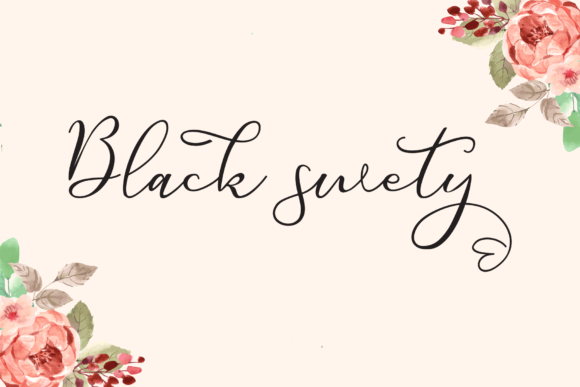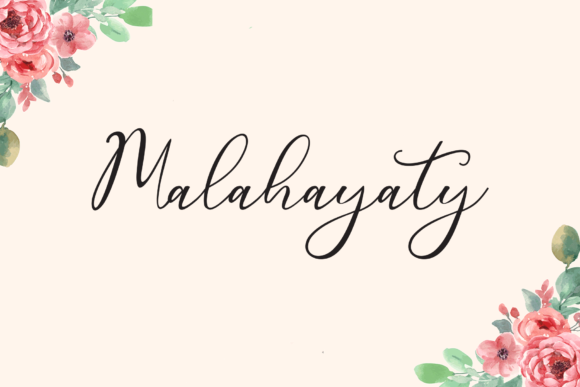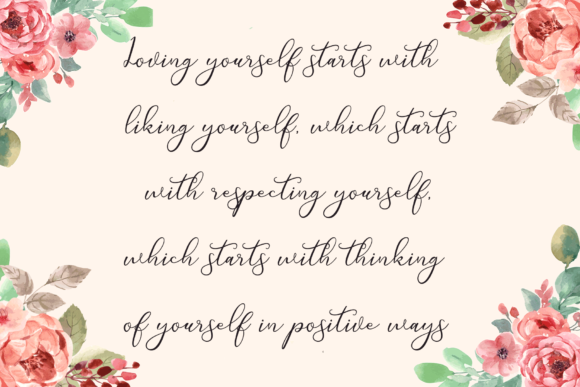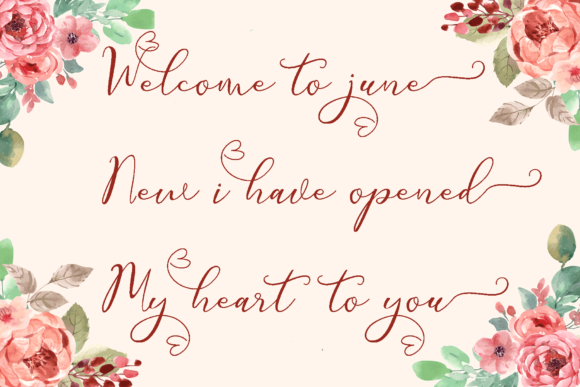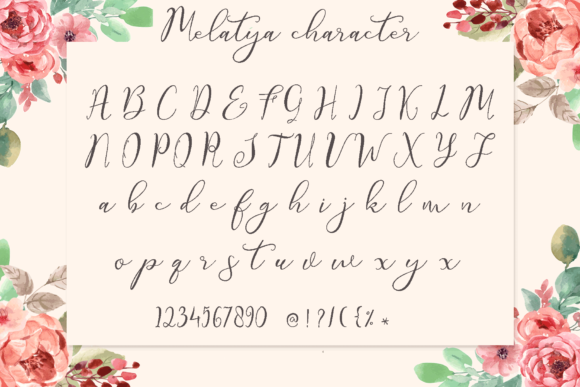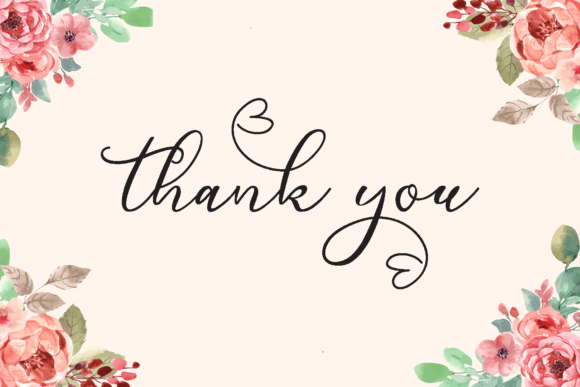
Introduction to Melatya Font
Have you ever been working on a creative project and felt like something was missing, a certain je ne sais quoi that would elevate it from good to great? I’ve been there, and I’m sure many designers have too. It’s that moment when you’re staring at a blank page, trying to come up with the perfect design element to bring your vision to life.
That’s where the Melatya Font comes in – a beautiful, romantic calligraphy typeface that adds a touch of luxury to any design project. With its elegant characters that dance along the baseline, this font is the perfect addition to any creative endeavor.
As a valuable resource for designers, the Melatya Font is not only high quality but also PUA encoded, making it easy to access all of its amazing glyphs and ligatures. Whether you’re working on a free download or a commercial project, this font is sure to impress with its transparent background and versatility.
Key Features of Melatya Font
- High-quality, professional font suitable for creative projects and design resources.
- Unique, elegant design style that can add a touch of sophistication to any creative project.
Honest Review: Melatya Font
As a designer, I’m always on the lookout for high-quality design resources to elevate my creative projects. Recently, I came across the Melatya Font, and I must say, it’s been a game-changer.
- ✨ Unique Design: The Melatya Font boasts a unique and stylish design that’s perfect for adding a touch of sophistication to your project.
- ✨ High-Quality: The font is crisp and clear, making it ideal for both digital and print designs.
- ⚠️ Transparency Issues: The font’s transparent background can sometimes cause issues when used on complex backgrounds.
- ⚠️ Limited Language Support: The font may not support all languages, which can be a limitation for designers working on multilingual projects.
Overall, the Melatya Font is an excellent addition to any designer’s toolkit. Its unique design and high-quality make it a must-have for any creative project. While it has some limitations, the benefits far outweigh the drawbacks.
For optimal results, use the Melatya Font in combination with other high-quality design resources. Some common use cases include:
- Designing logos and branding materials
- Creating social media graphics and advertisements
- Developing marketing materials and presentations
- Designing websites and web applications
Aleo is a high-quality, elegant sans-serif font perfect for creative projects that require a sophisticated look. It’s free to download and offers a transparent background, making it ideal for designs with complex compositions.
When to use: Luxury branding, high-end product design, or any project where you want to convey a sense of refinement and elegance. Aleo is a great alternative to Melatya Font as it shares a similar elegant feel but with a more modern twist.
Montserrat is a geometric sans-serif font that’s ideal for creative projects that require a modern and urban feel. It’s free to download and offers a high-quality design that’s perfect for designs with complex compositions.